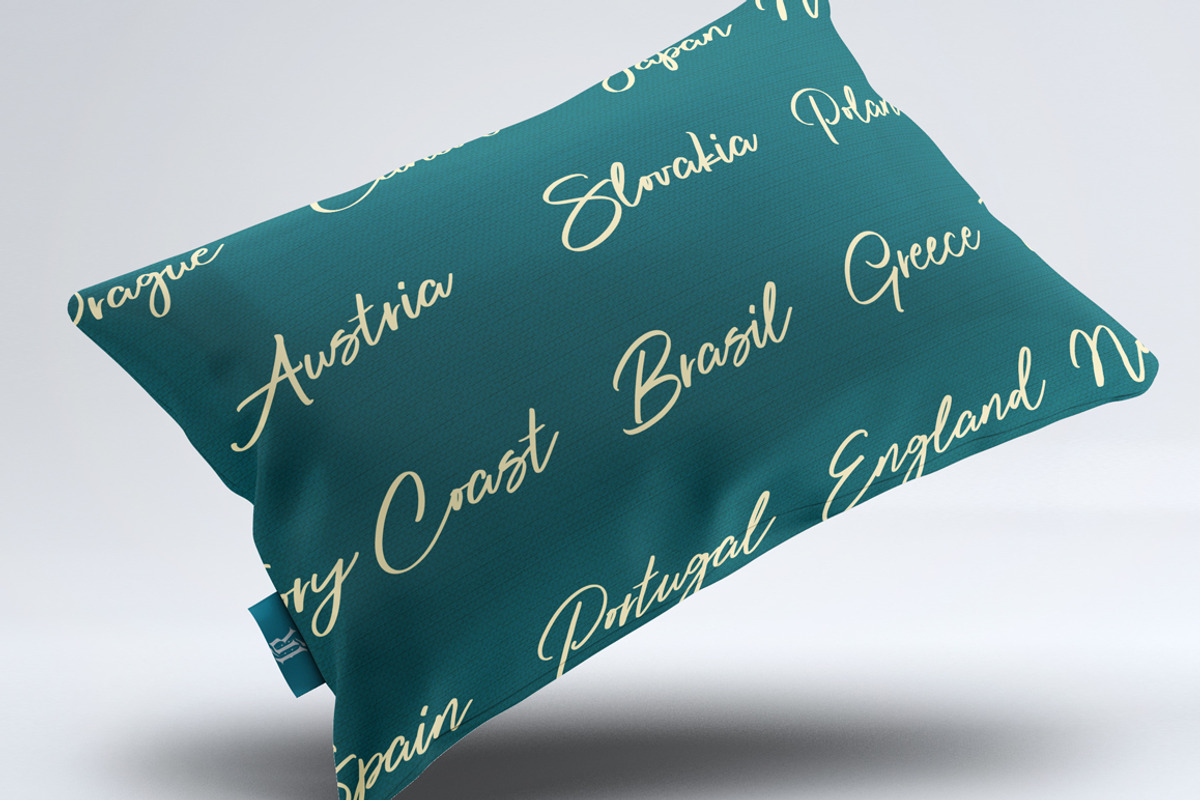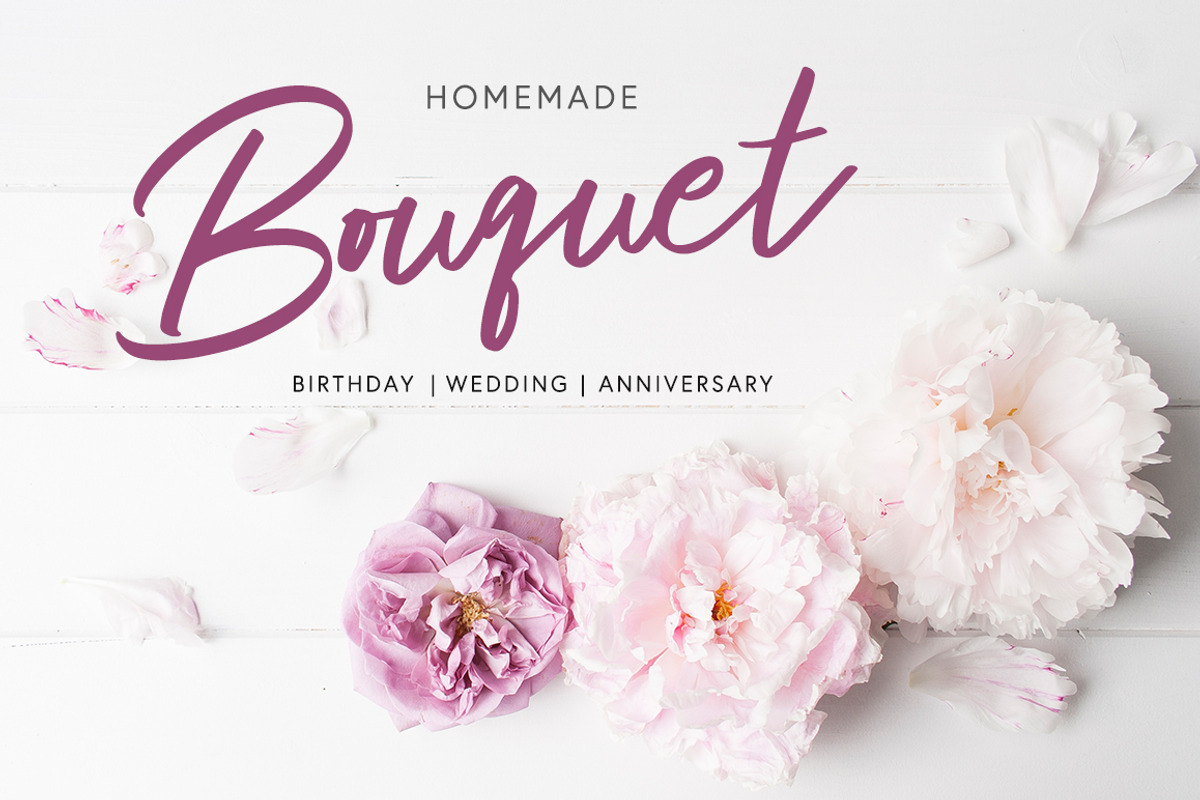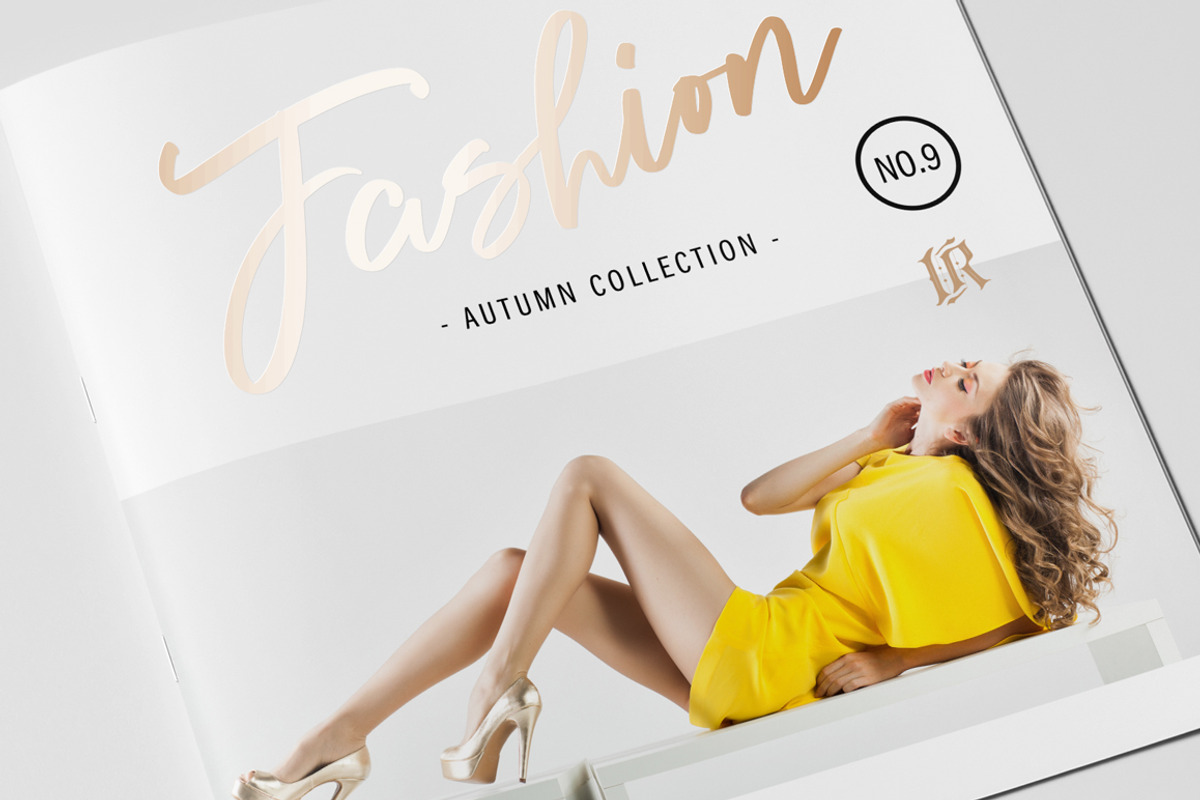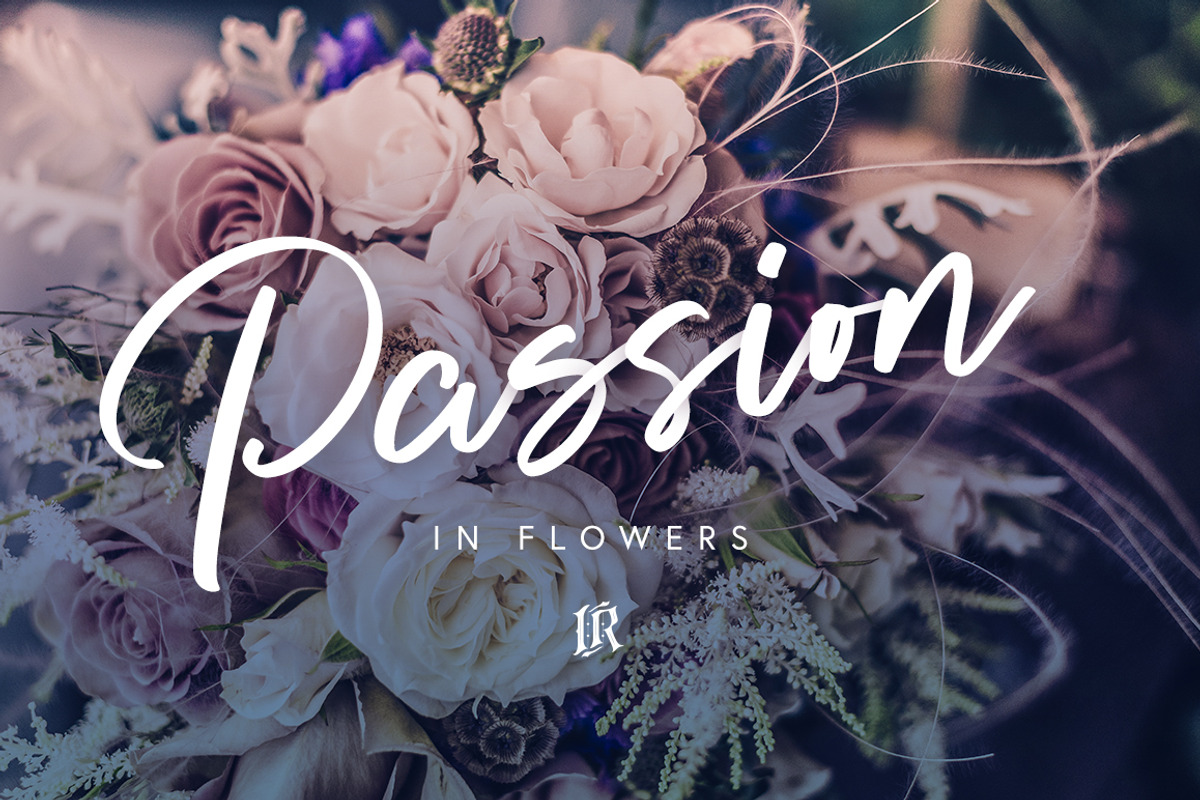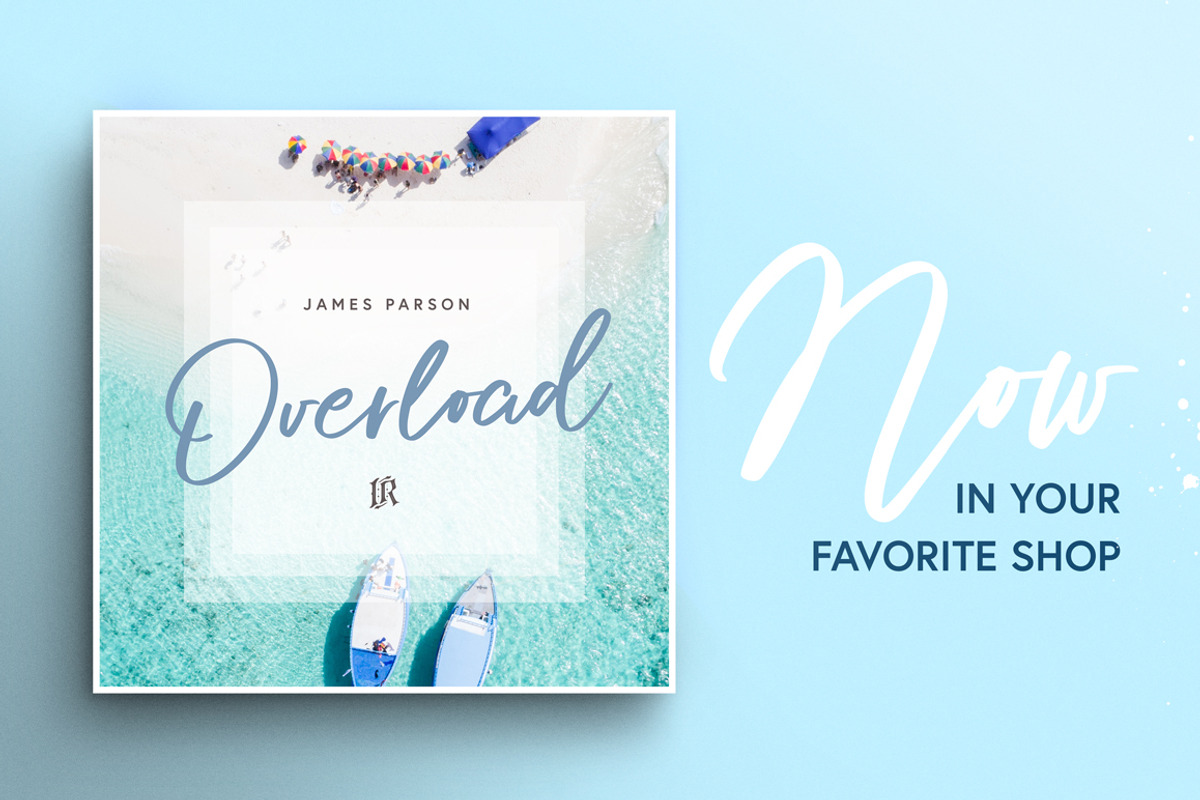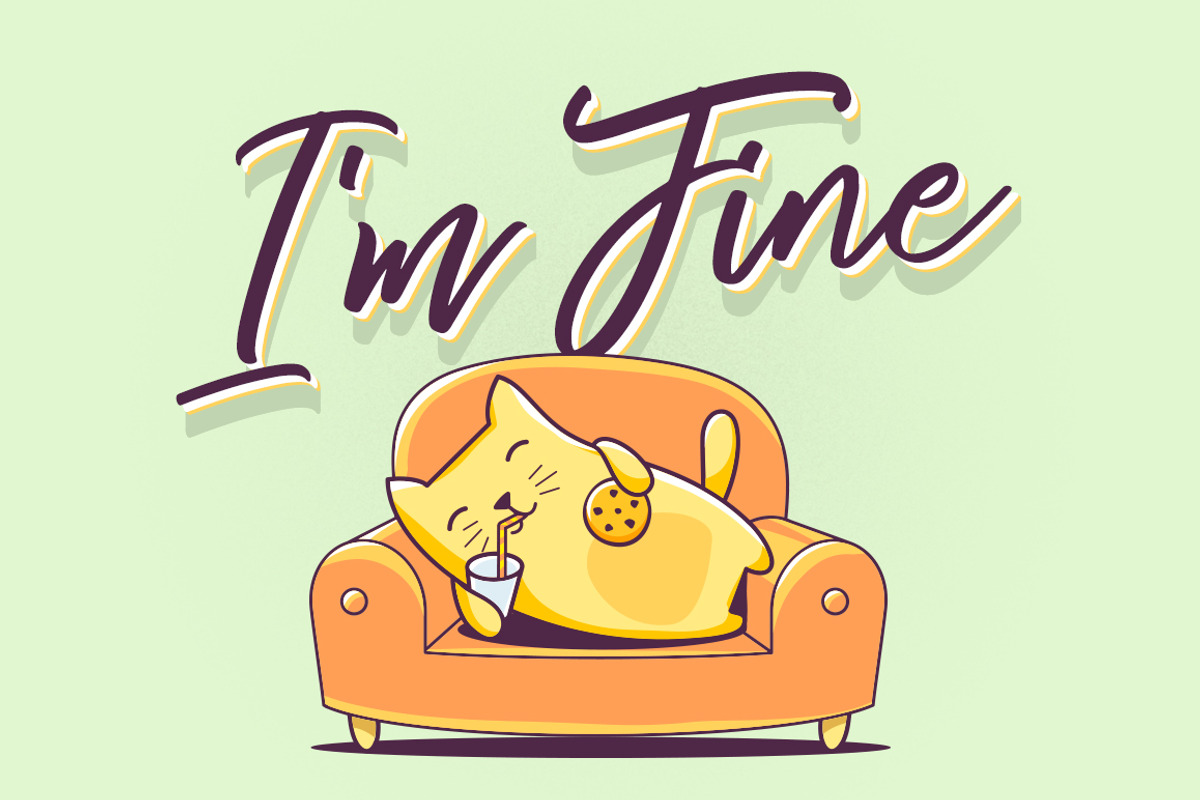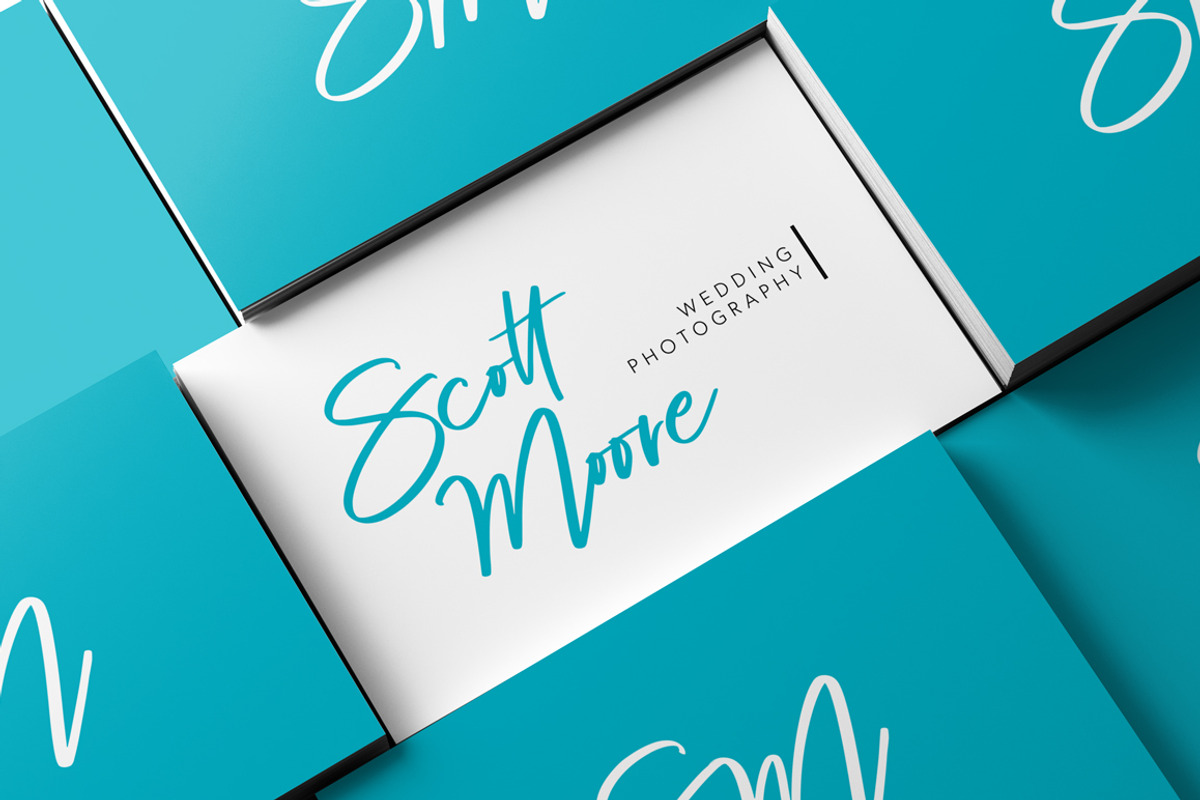
Frosty Sky Font
Frosty Sky is a hand brushed font with multilingual support. It's ideal for t-shirts, magazines, phone covers, social media, restaurant menus, greeting cards, invitations, weddings, headers and many more.
This font duo comes with a complete set of lowercase and uppercase characters, alternate characters, a large range of punctuation, ligatures, numerals and multilingual support.
Frosty Sky is a set of glyphs, Upper and Lowercase with ligatures, numerals and lot of punctuation glyphs and alternates for lowercase characters.
Frosty Sky ALT The original font, with an alternate set of lowercase letters changed for the standard characters.